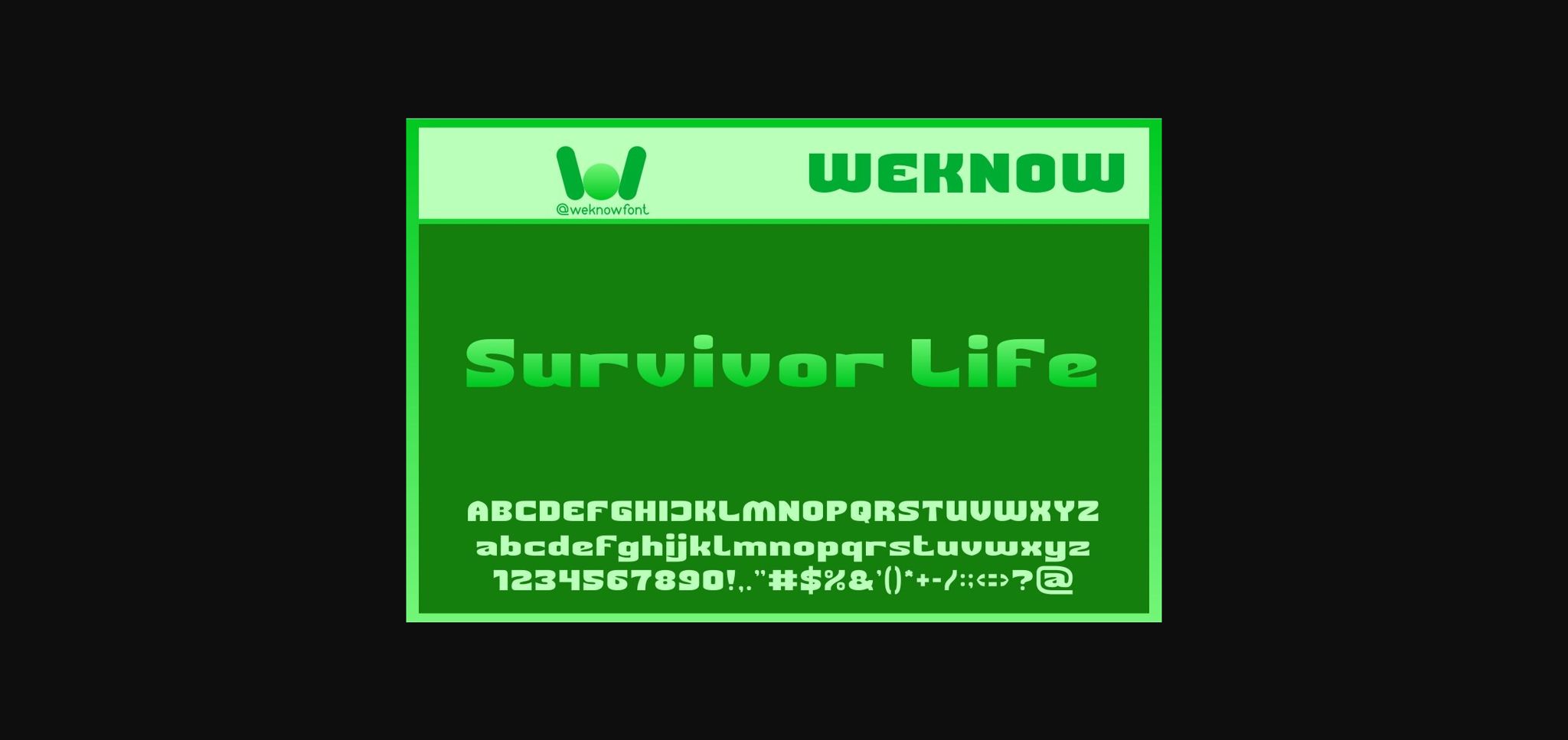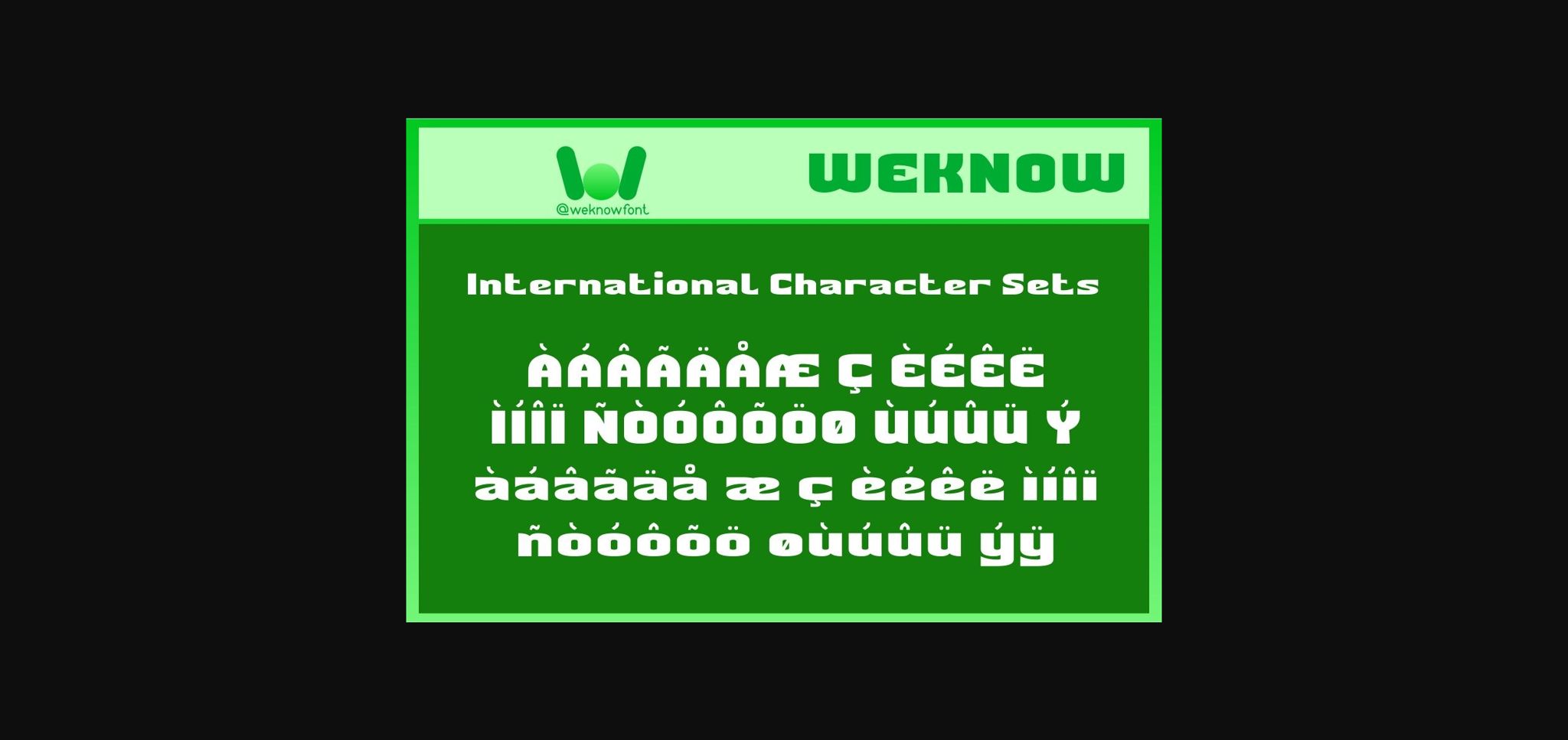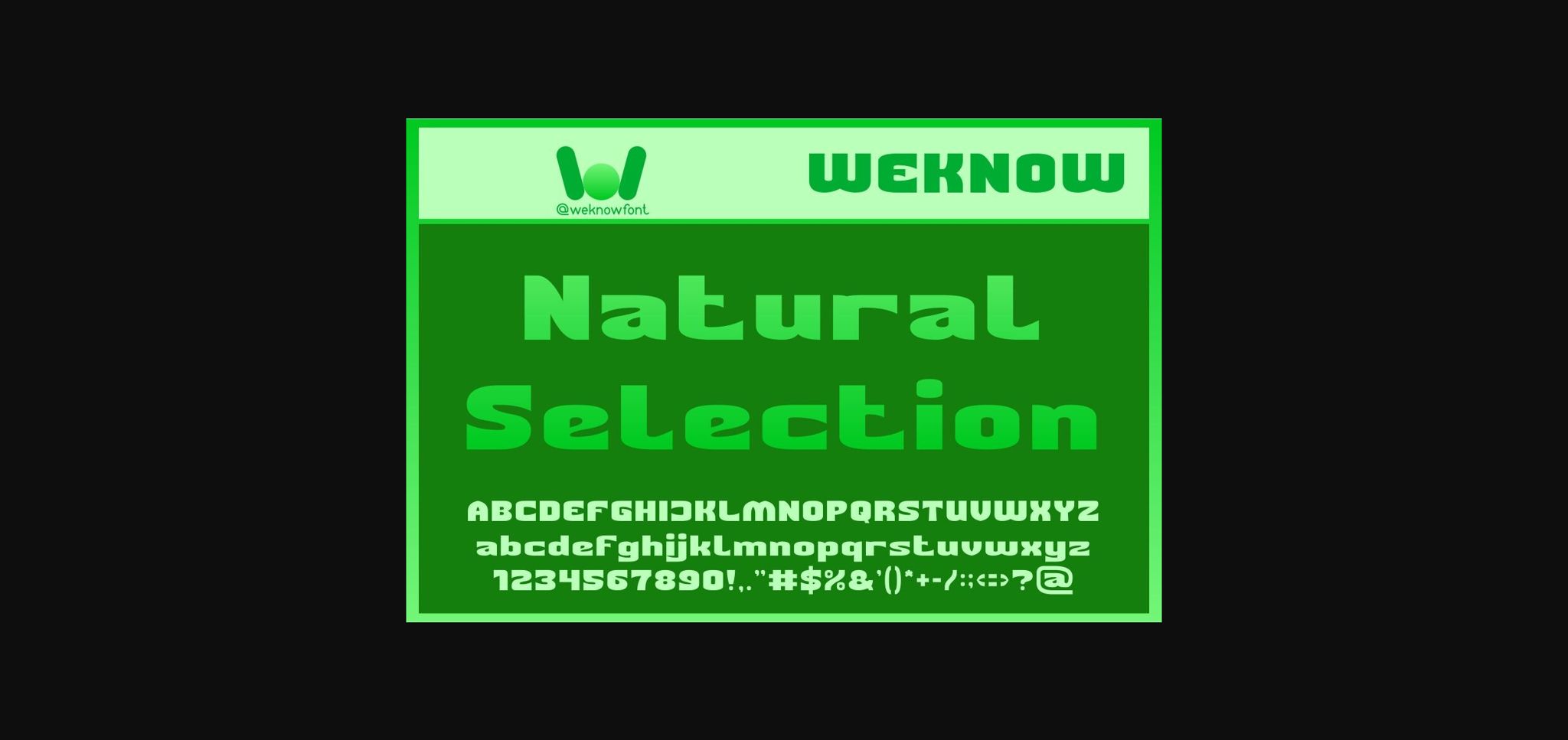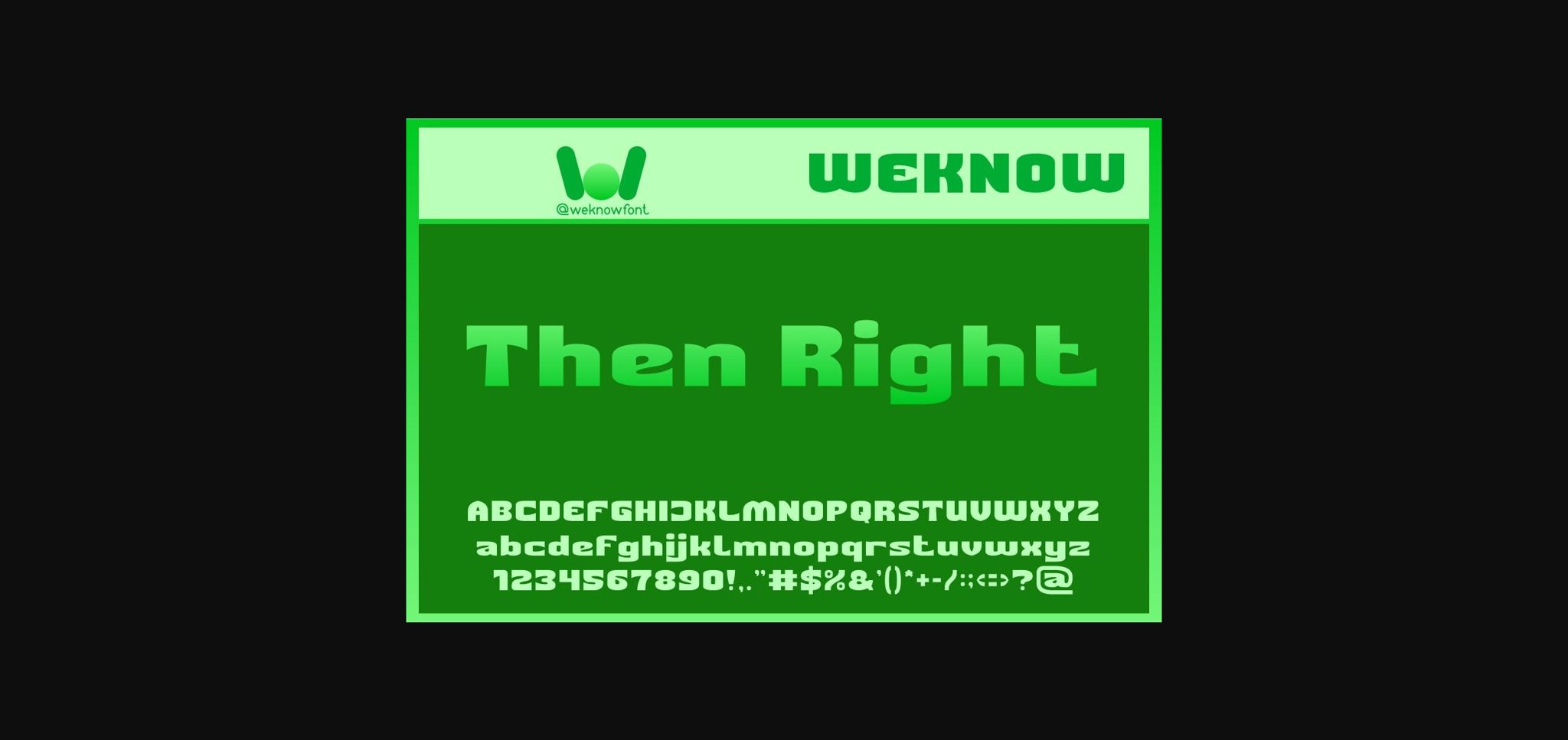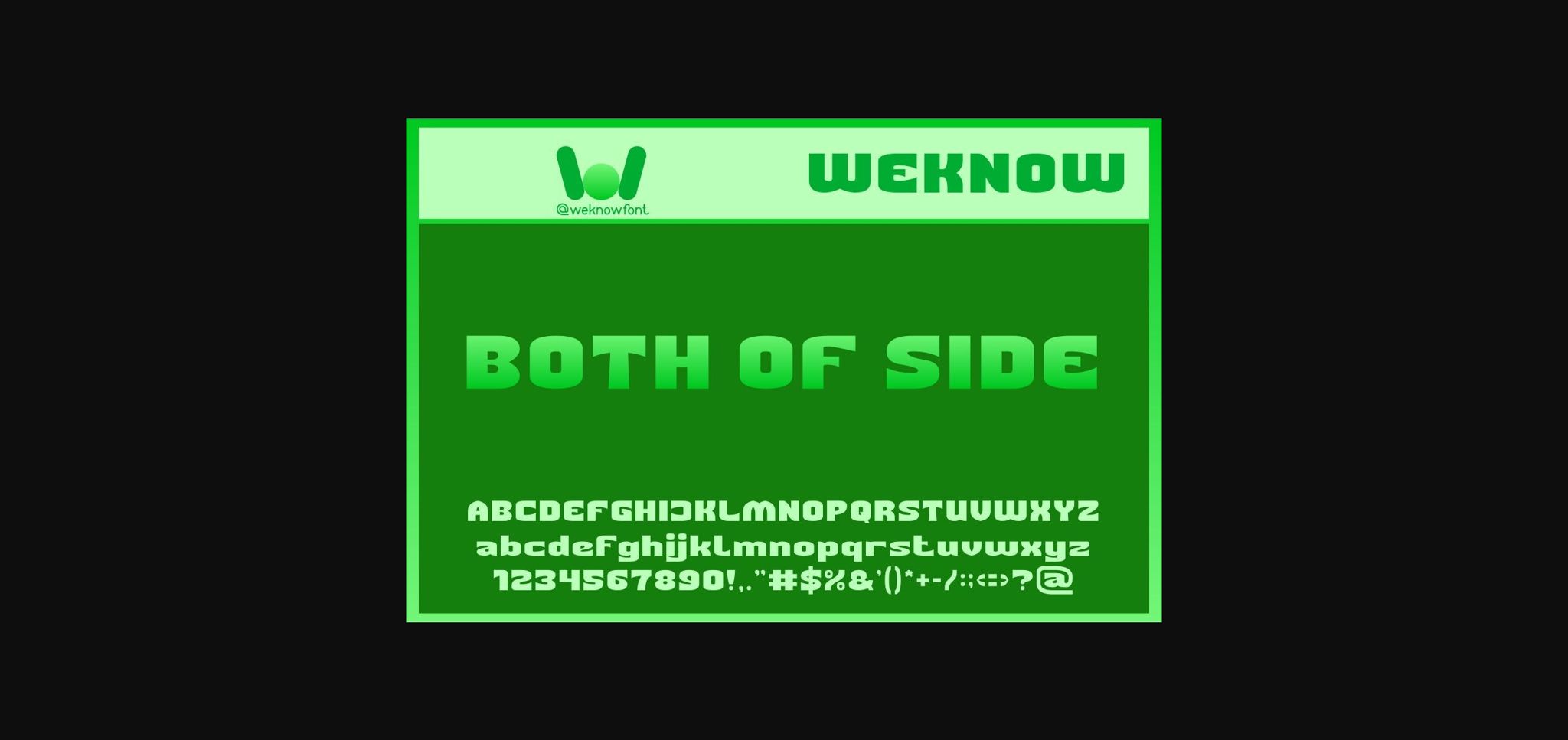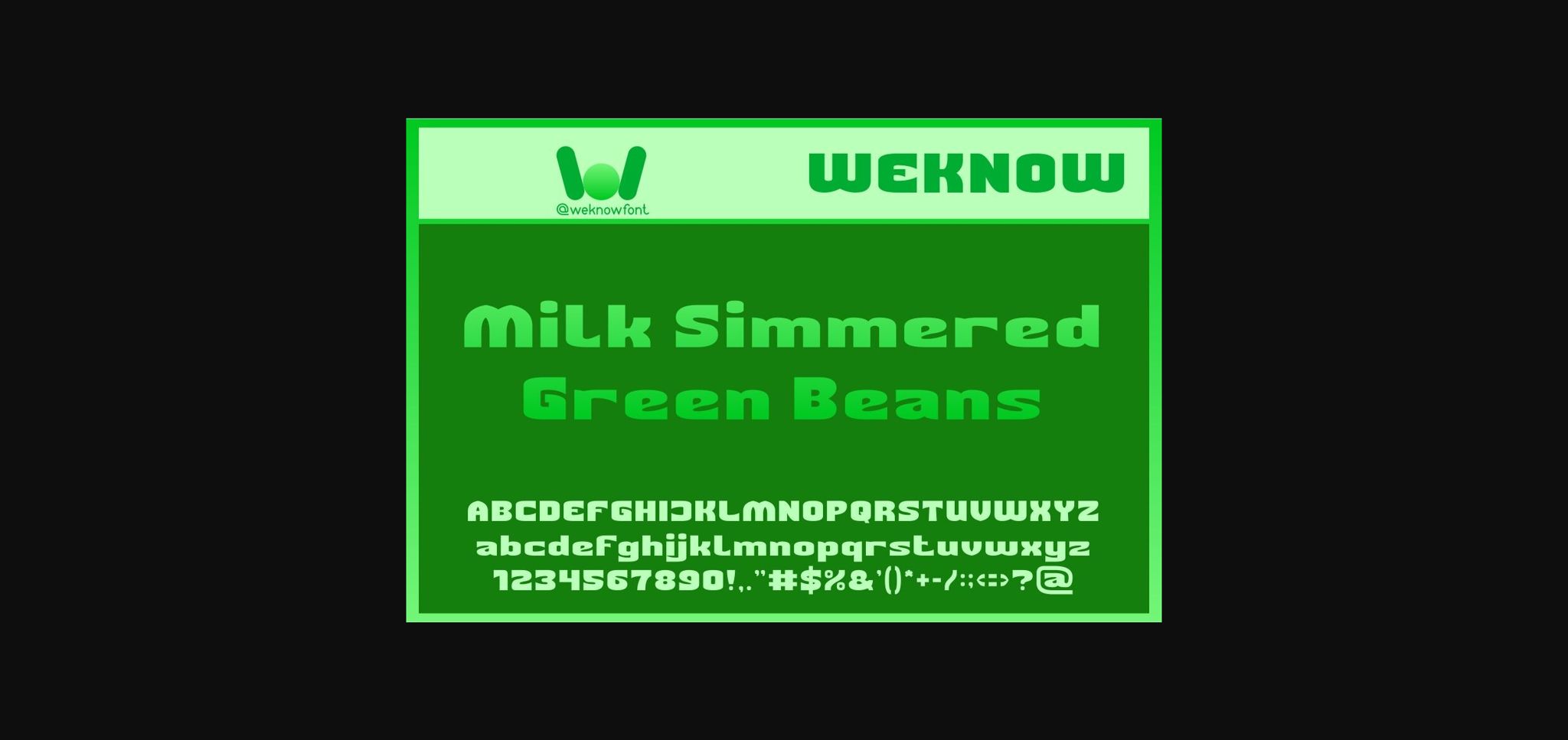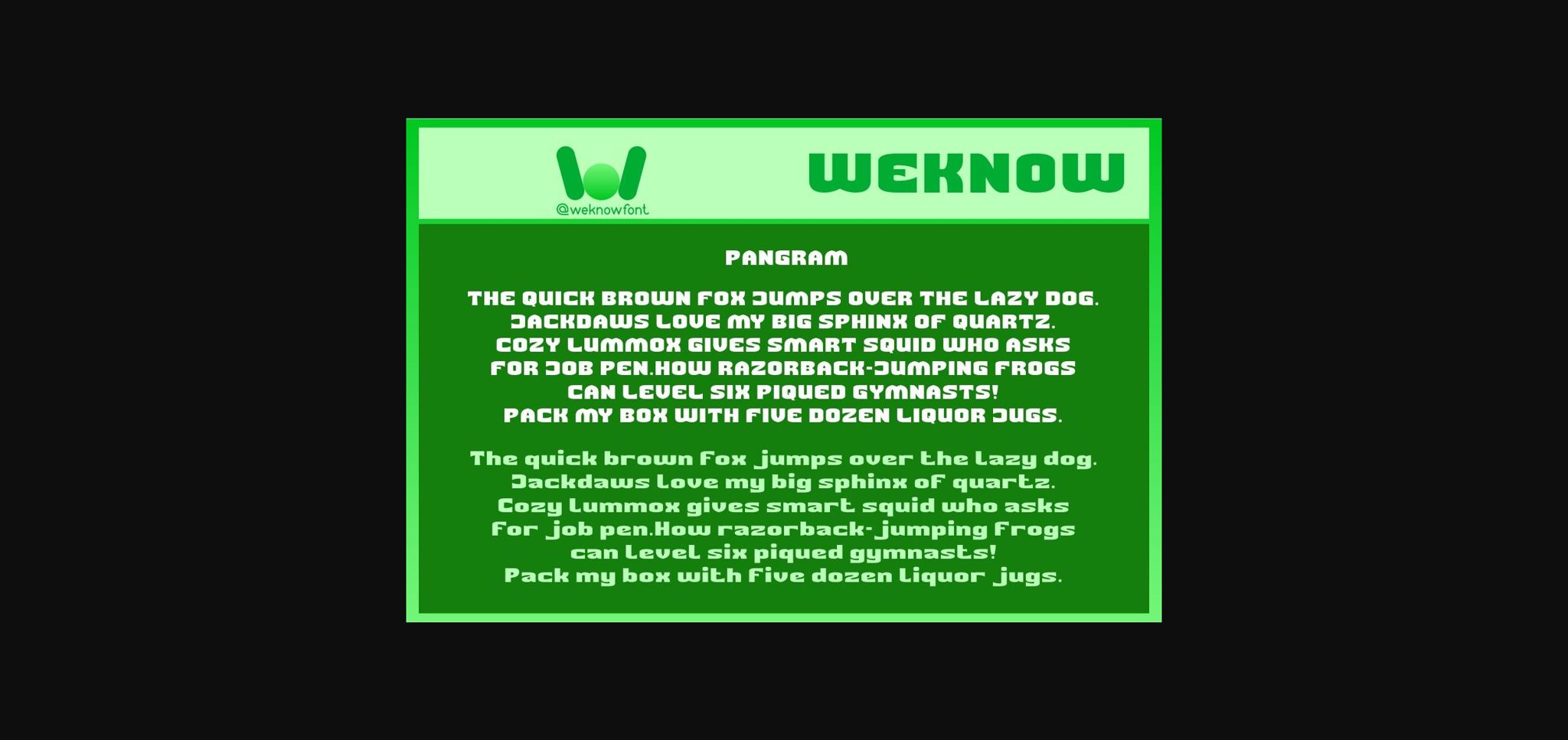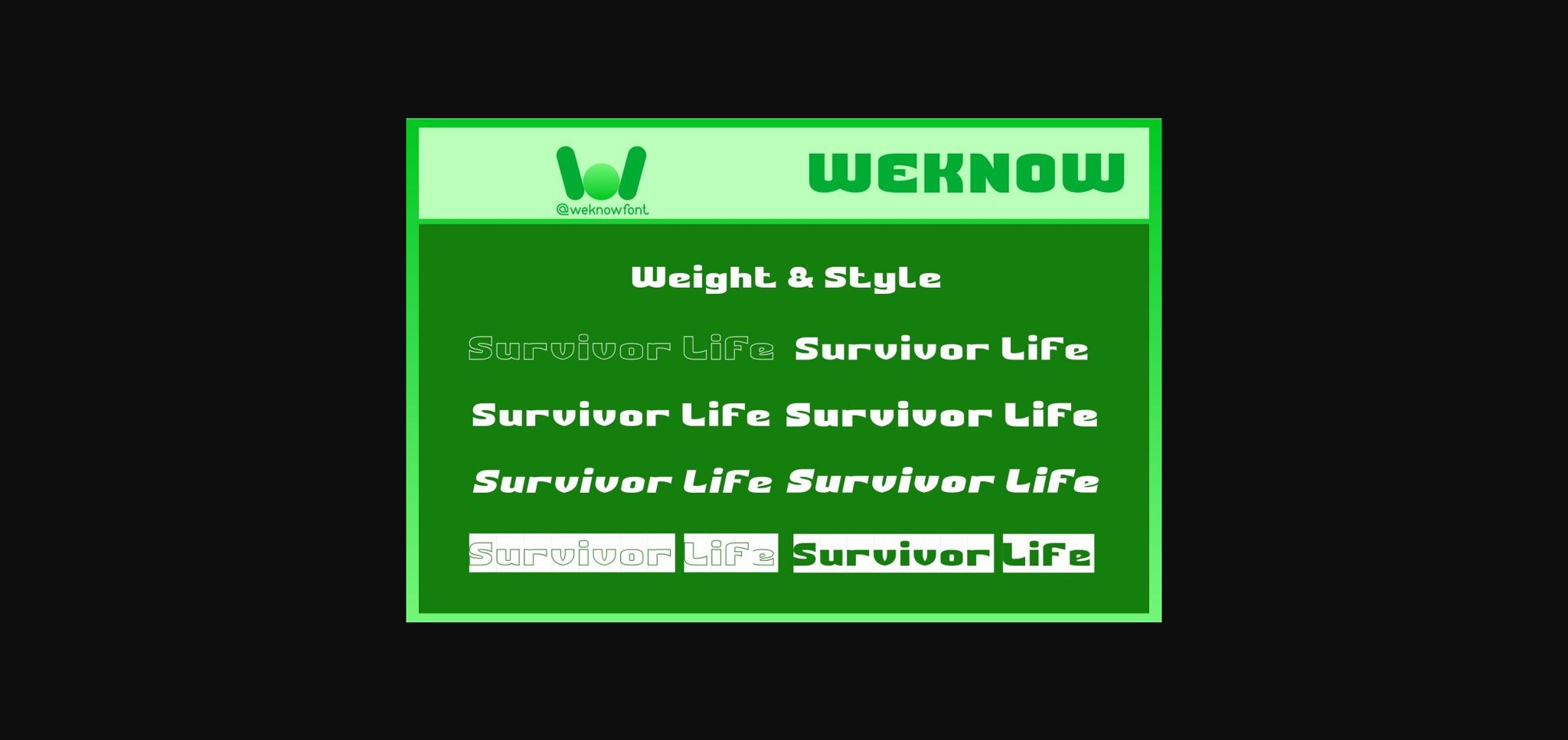
Survivor Life Font
About Survivor Life Font
Immerse yourself in the bold and inimitable style of Survivor Life, a basic sans-serif display font ready to transform your creative canvas into a remarkable piece of art. Apt for logos and logotypes, Survivor Life redefines corporate and brand identities with its sleek design. Whether it’s revamping the apparel industry’s flair or setting the tone for music, movies, and games, this font brings a unique touch. From commanding headlines in magazines and books to sprucing up comic and cartoon visuals, Survivor Life adds versatility. Maximize your social media impact on platforms like YouTube and Instagram, or elevate the aesthetics of your website with this edgy typeface well-tailored for your captivating design projects.